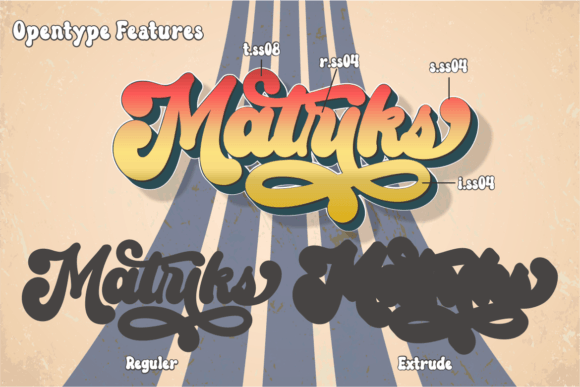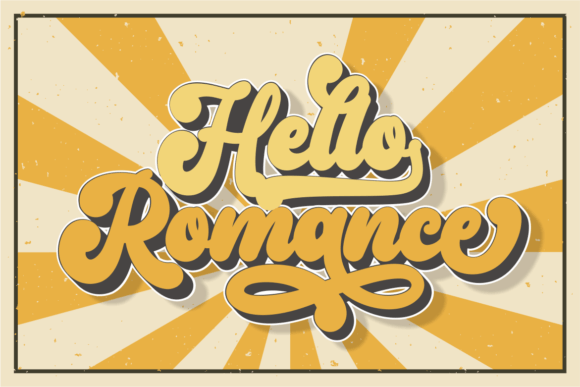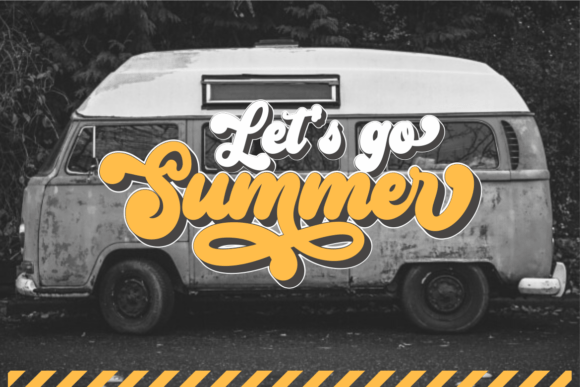
Introduction to Matriks Font
Matriks is a retro and bold handwritten font perfect for a wide spectrum of applications such as greeting cards, headlines, magazines, logos, and many more.
Add it confidently to your projects, and you will love the results This font is PUA encoded, which means you can access all of the glyphs and swashes with ease.
Key Features of Matriks Font
Why Choose Matriks Font?
Matriks Font offers exceptional quality and versatility, making it a valuable addition to your design toolkit. Whether you’re creating for personal projects or commercial use, Matriks Font delivers professional results.